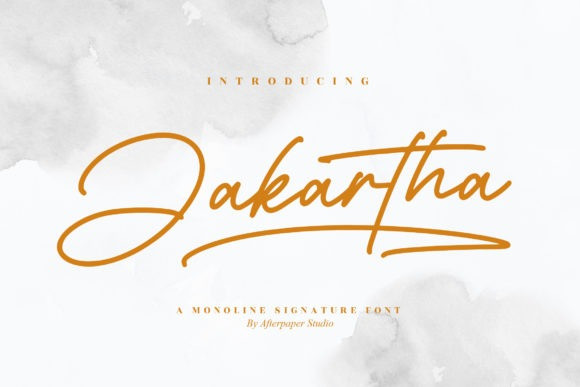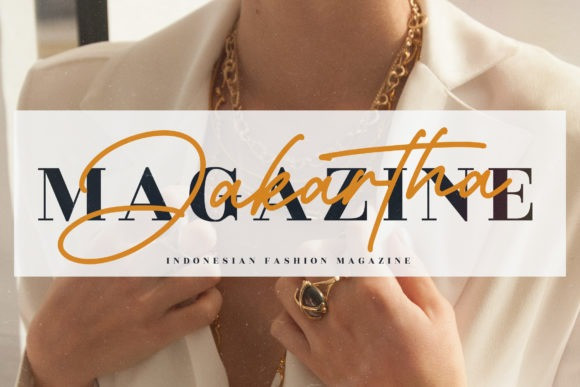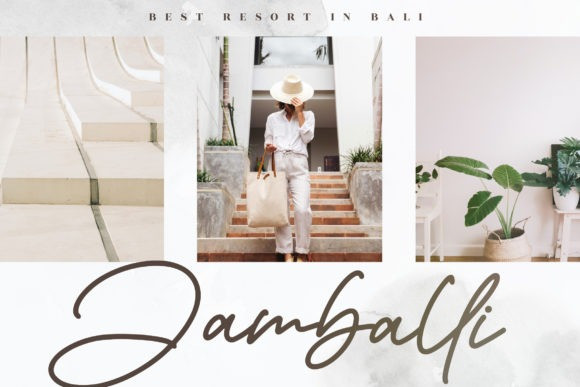
Jakartha Font
Jakartha is a luxurious script font. It is suitable for any projects such as: logos, branding projects, product packaging, mugs, quotes, posters, shopping bags, t-shirts, book covers, and more. This font is PUA encoded which means you can access all of the glyphs and swashes with ease!